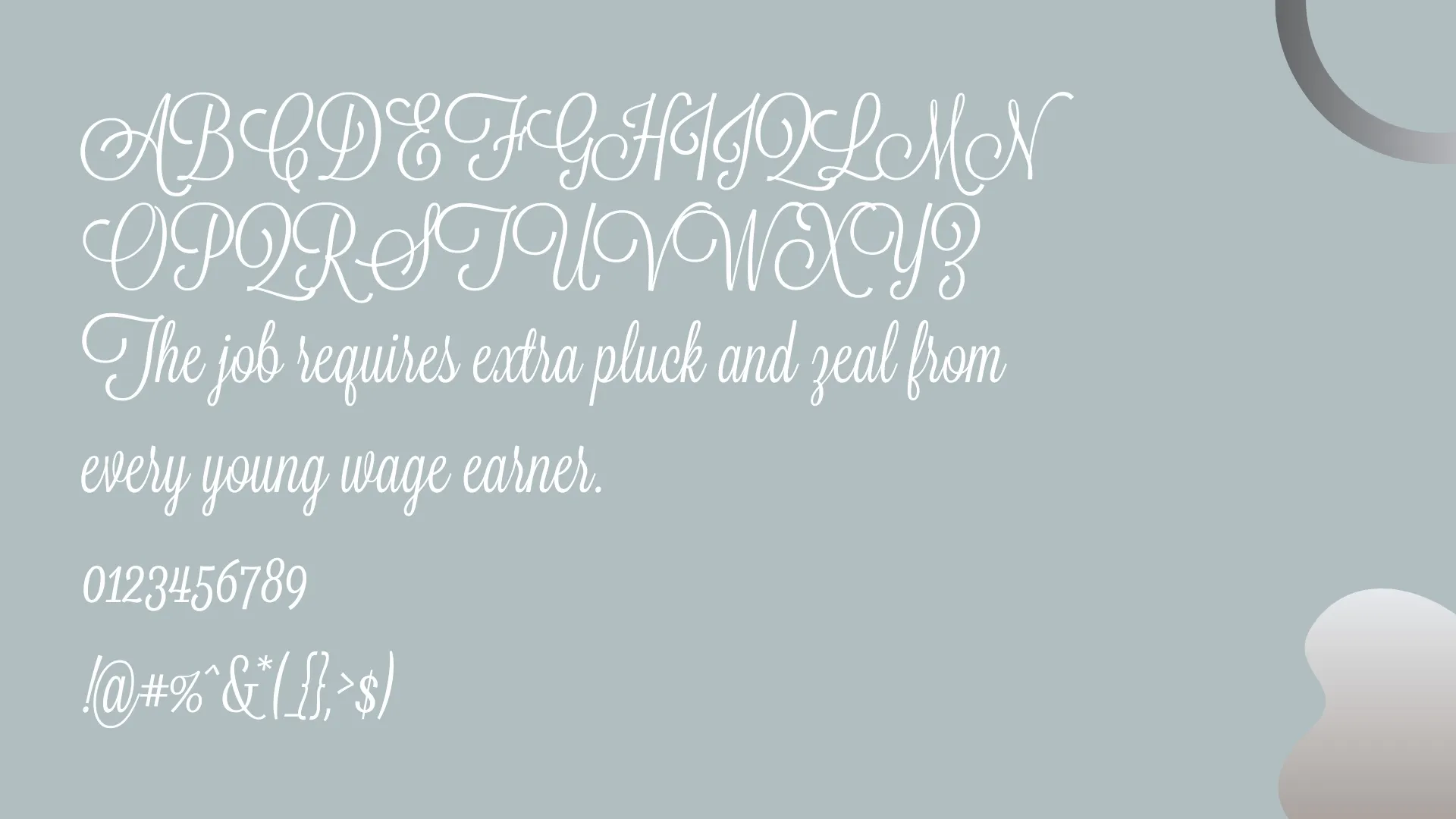
Lavanderia Font has a handwritten and stylish texture appearance and it belongs to the Calligraphy font family. This typeface has a stylish and professional font appearance that you can easily utilize for business purposes.
This textured style is used to create storefronts, covers, logos, and T-shirt designs, among other things. It’s also perfect for homeware designs, branding projects, and adding lovely overlay text to any photo design because of its slim appearance.
This typeface is also appropriate for modern projects and websites. This typeface is also used in a variety of other interesting and creative projects. Because of its formal and beautiful text qualities, it is also well-known among designers.
This typeface is used by a lot of companies to mark their brands and projects. This typeface has a formal and elegant feel as well as graceful writing. As a result, numerous fashion brands use this font design in their articles. As a result, many designers incorporate it into a wide range of projects and concepts. You can compare it with anydore font.
Designer of Lavanderia Font
This elegant and hand-written font style is designed by James T. Edmondson and released in 2011. He also designed several of the lovely font types that are widely used around the world. He focused on the elegancy and design of the characters while creating this font type.
This typeface texture is constructed with a family of its own. Each style in this family includes capital letters, tiny letters, 291 amazing glyphs, punctuations, numbers, symbols, and special characters, as well as support for a wide range of languages. These styles are as follow: –
- Lavanderia Delicate
- Lavanderia Regular
- Lavanderia Bold
- Lavanderia Italic
- Lavanderia Condensed
View of Lavanderia Font
| Name | Lavanderia Font |
| Style | Calligraphy |
| Designer | James T. Edmondson |
| Foundry | Lost Type Corporation |
Who designed the Lavanderia font?
This typeface is created by James T. Edmondson and make this font public in 2011.
What font is closest to Lavanderia Font?
The feel of some of the typographies is incredibly similar to that of this typeface. On the other hand, the mustardo font is remarkably similar to this font. This typeface can be used as an alternative to the Reliant Font style.